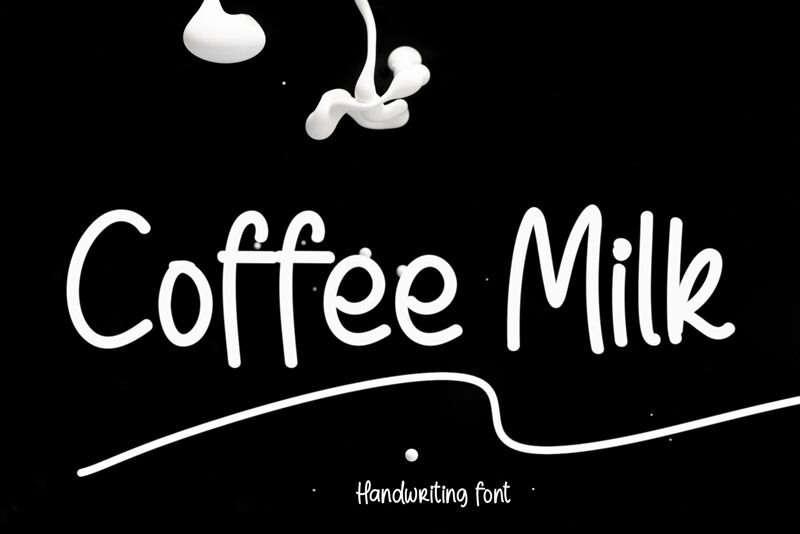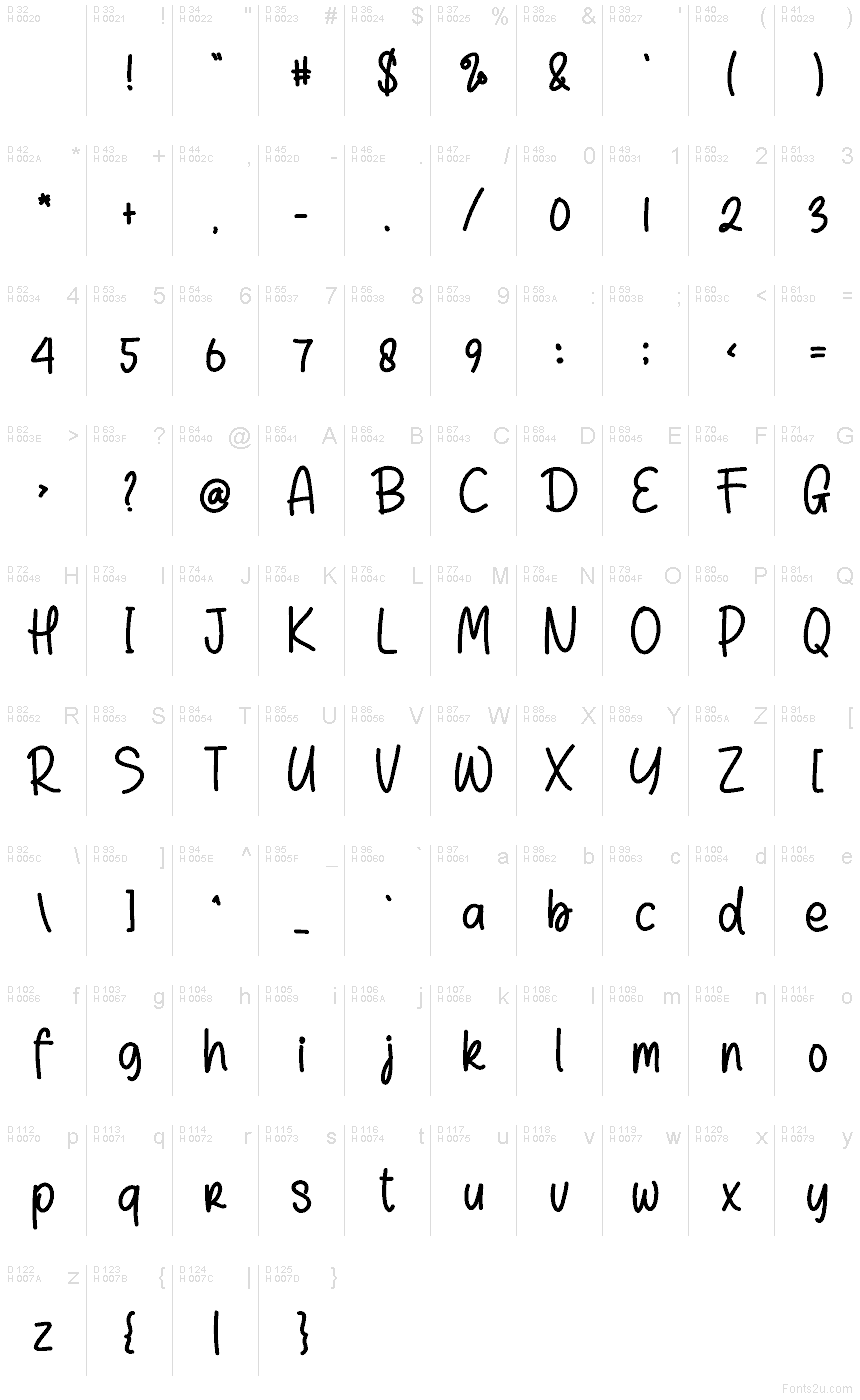
Coffee Milk
Coffee Milk font by Creatype Designer is a free handwritten font that gives you that relaxed, marker-on-paper feel without sacrificing clarity. The strokes are smooth and even, with a gentle bounce that feels friendly and human, not messy. Letters sit close and snug, like notes scribbled on a café cup, making Coffee Milk a natural fit for warm, approachable branding and everyday graphics.
Using Coffee Milk, this free font shines on coffee shop menus, product packaging, recipe cards, kids’ book covers, quote posts, and playful logo wordmarks. Its casual rhythm helps your message feel personal and conversational, while still reading cleanly at smaller sizes. For balance, pair Coffee Milk with a simple sans serif for body text, letting this handwritten typeface handle headlines, labels, and short, inviting phrases.